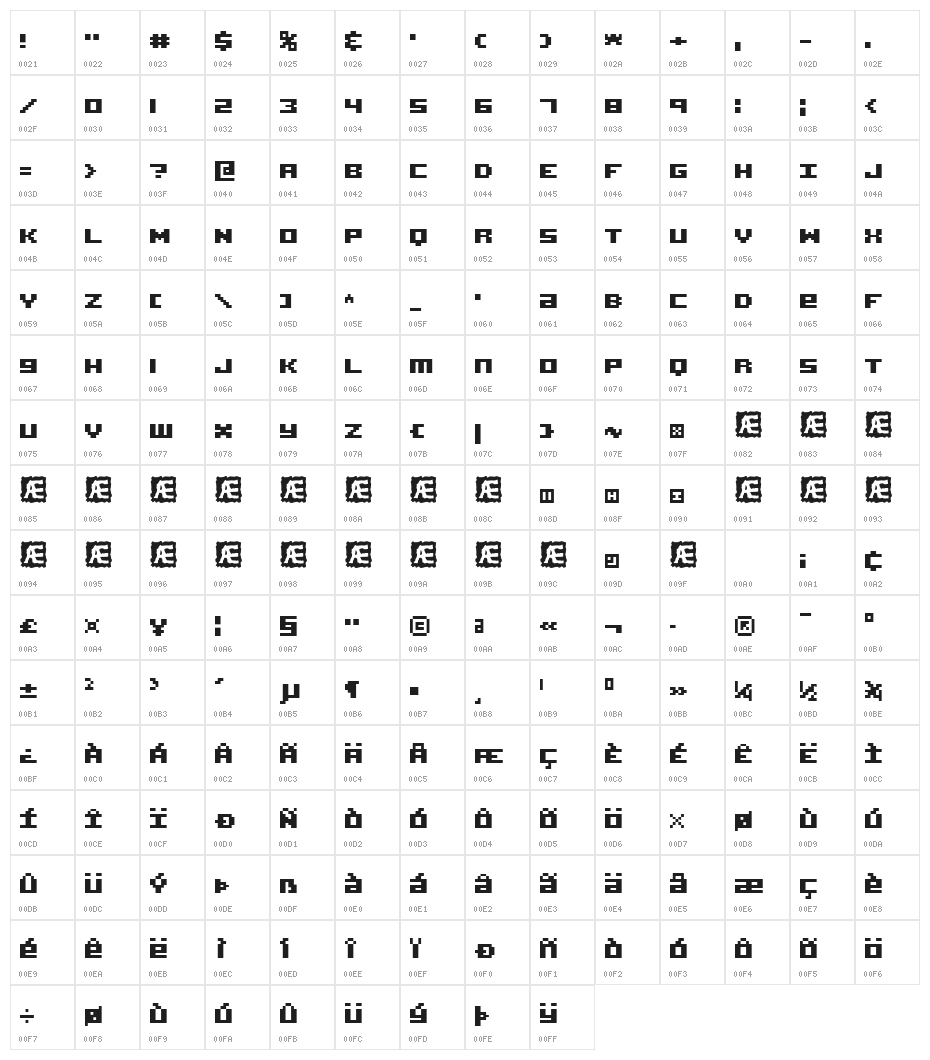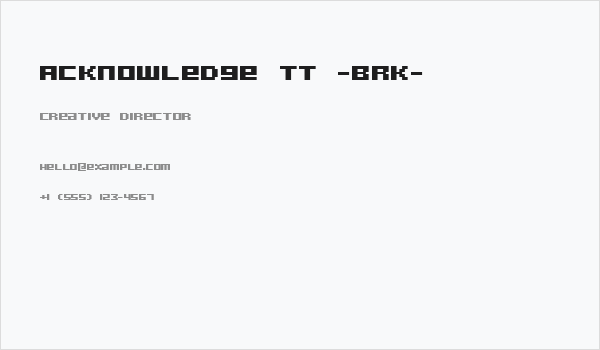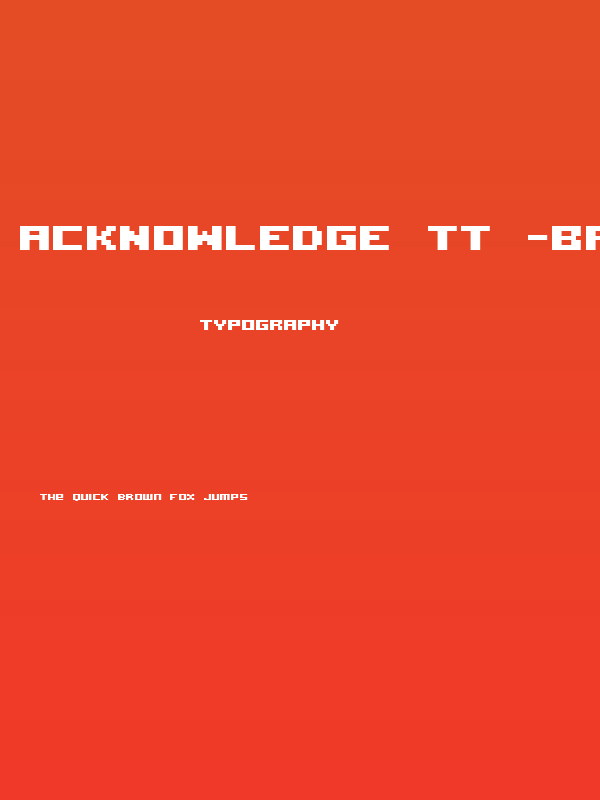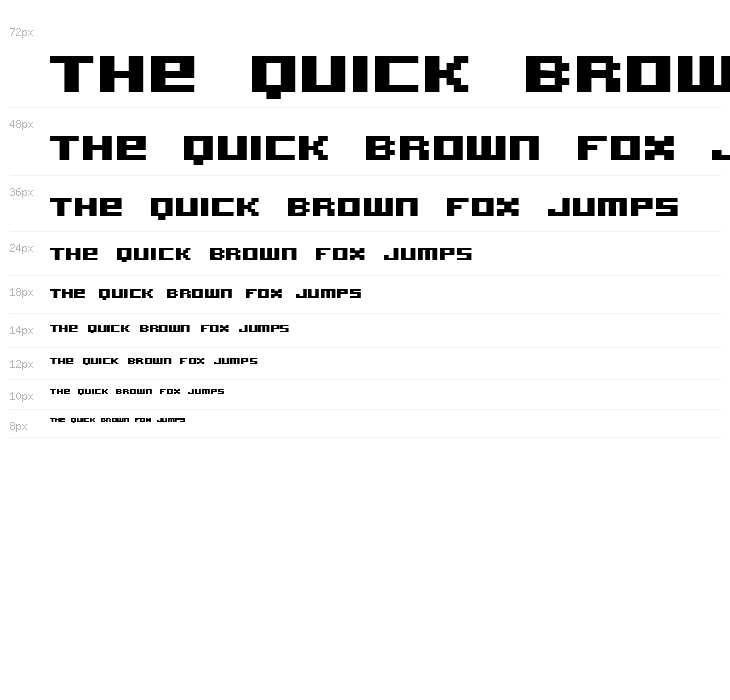
Acknowledge TT -BRK- Font
Acknowledge TT -BRK- Description
This font features a bold, blocky design with a pixelated aesthetic reminiscent of early digital or video game typography. The characters are uniformly structured with sharp, angular edges, giving it a distinctly retro and technological feel. The uppercase and lowercase letters maintain a consistent height, contributing to a monospaced appearance. The numerals and special characters follow the same geometric style, ensuring uniformity across all glyphs. This font's design is straightforward and impactful, making it suitable for projects that require a strong visual presence.
| Overall Style | Retro, Digital |
| Use Case | Headlines, Logos, Display text |
| Proposed Projects | Ideal for video game graphics, retro-themed designs, digital art projects, and tech-related branding. |